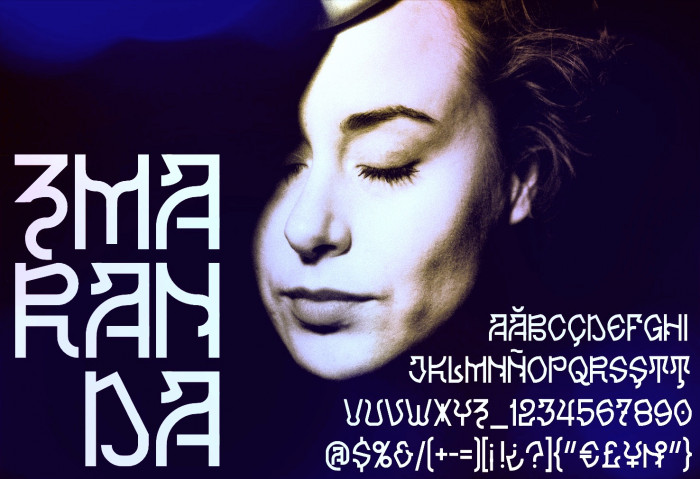
• Uppercase font. Based in antique romanian alphabets, but modernized. Contains the romanian A, S and T special diacritics (at the <, > and ^ glyphs), and an extra U in the lowercase because the traditional romanian U looks like a V to me. Created during a summer vacation, when travel was still easy.
Uppercase font. Based in antique romanian alphabets, but modernized. Contains the romanian A, S and T special diacritics (at the <, > and ^ glyphs), and an extra U in the lowercase because the traditional romanian U looks like a V to me. Created during a summer vacation, when travel was still easy.
i never knew "antique romanian alphabet" existed, its so pretty. i thought it was squiggly latin
Yes, it's Old Slavonic! Surprisingly, I have already done somthing same too - in Vyaz font - but your version is more accurate, excellent numbers are worth a separate mention, my 10 to you. I highly recommend reading the first link under my font, translating google translate into your language
very interesting design, quite unique
Unusual and beatiul work!
@Dmitriy Sychiov: I can easily recognize in your font the shapes of the Old Slavonic that caught my attention on my trip to Romania. Thank you very much for all the valuable information you always add and for your constructive comments.
Make the <, >, and ^ signs, because it shown Romanian accents a˘, s¸, and t¸ instead.